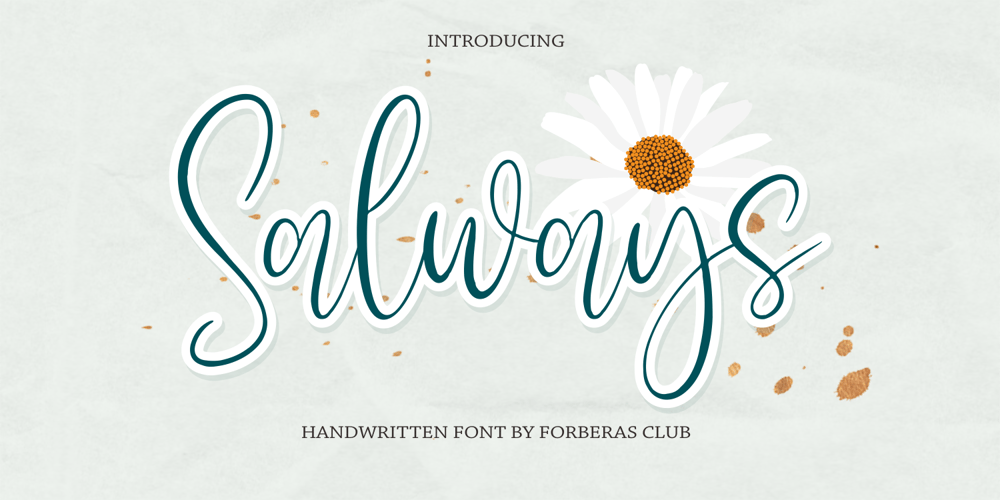
Salways Font Family was designed by ANGGI HERMAWAN and published by Forberas Club. Salways contains 1 styles and family package options. Salways is our new product , the handwritten font with playful and bouncy theme to match up your personal project like wedding invitation, your party or the cute moment you have.